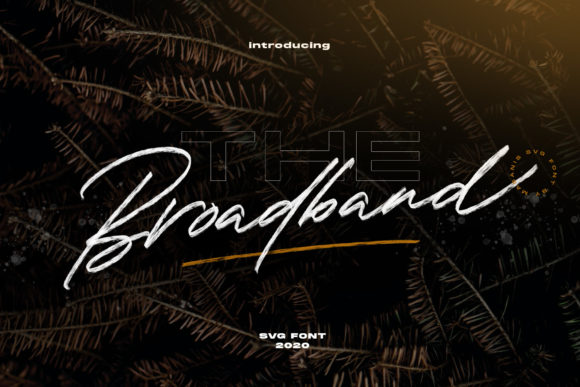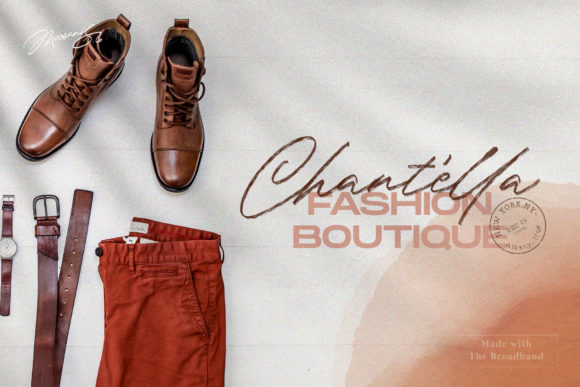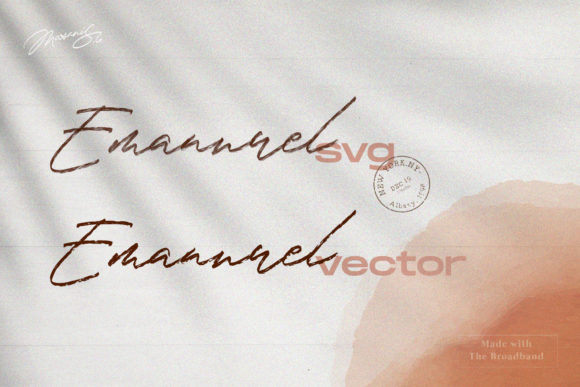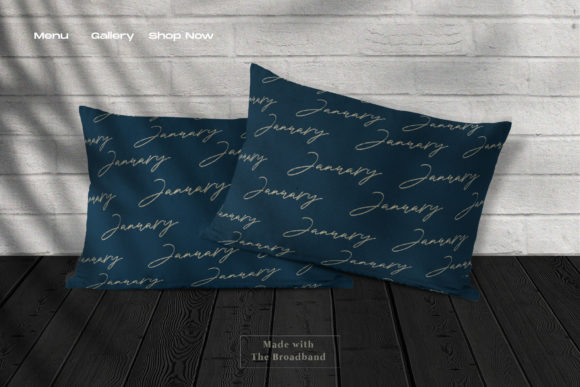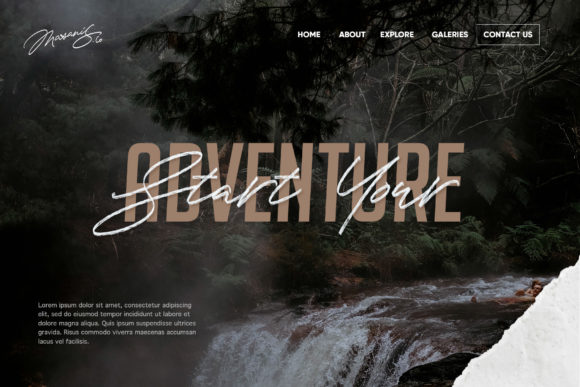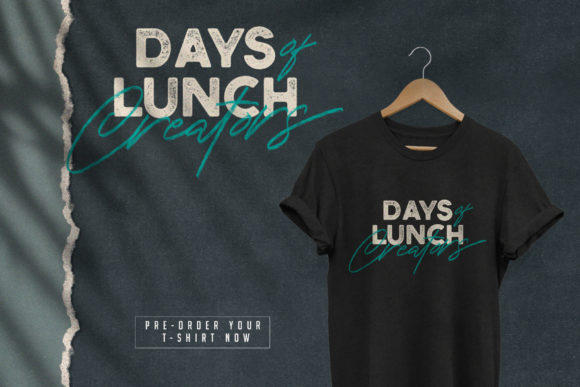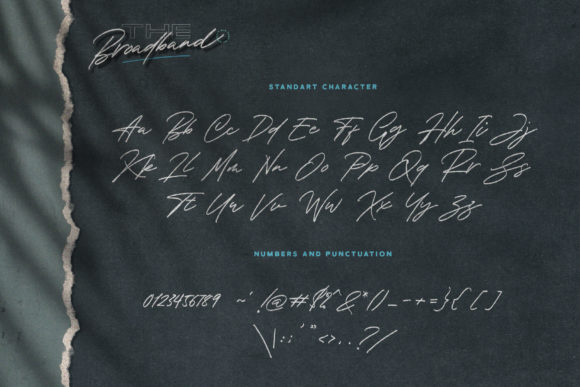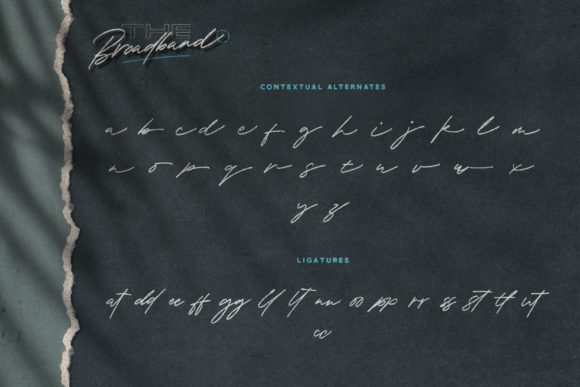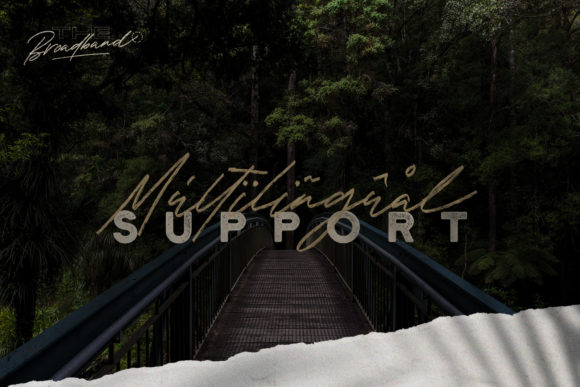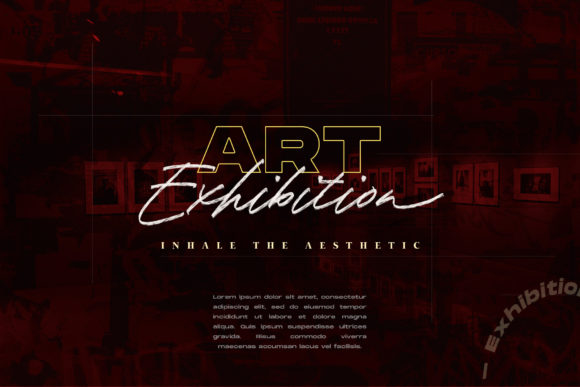
Broadband Font
About Broadband Font
Broadband is an incredibly smooth and charming script that feels authentic, yet elegant. Get inspired by its unique charm, and turn any design idea into a true standout.